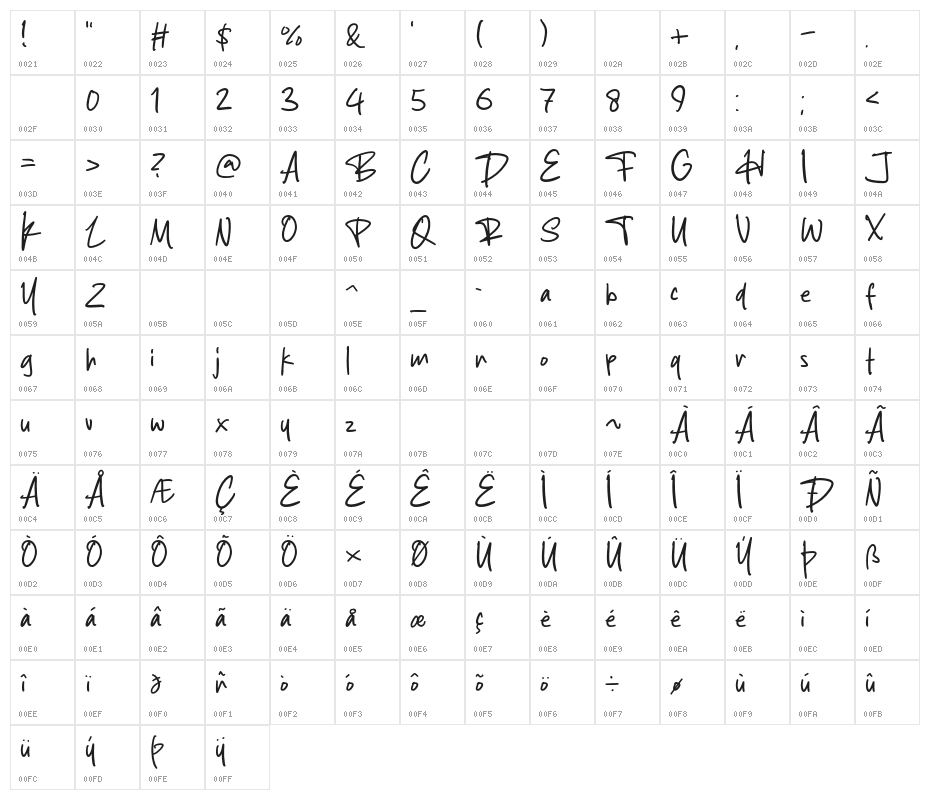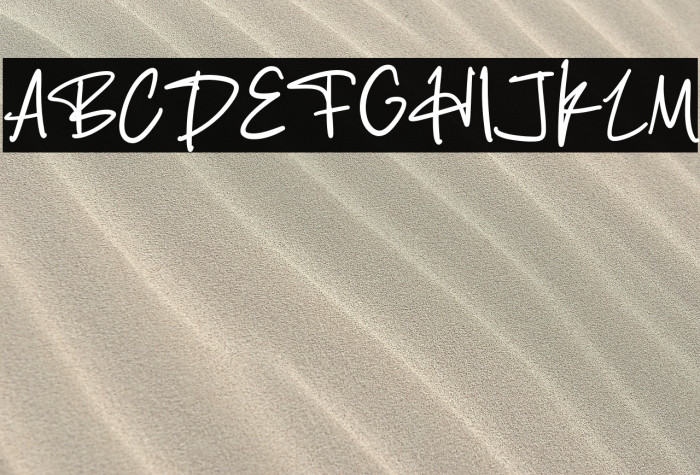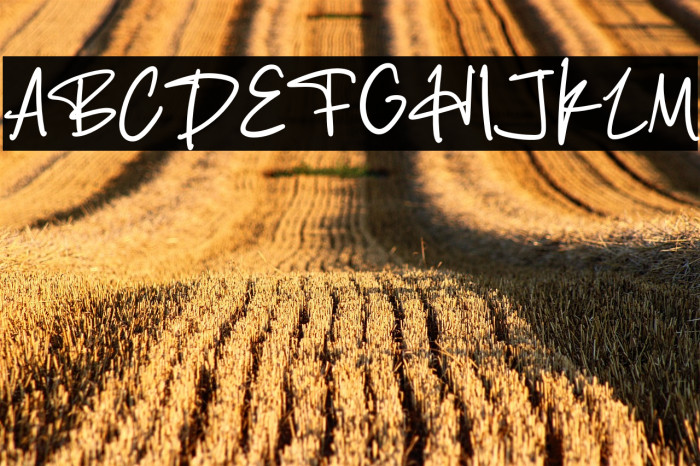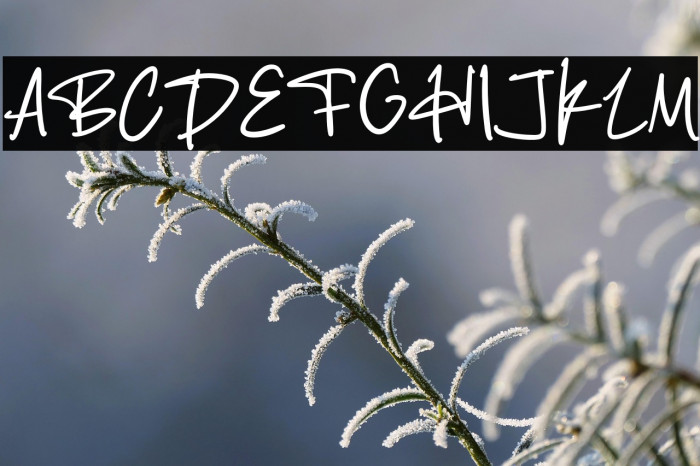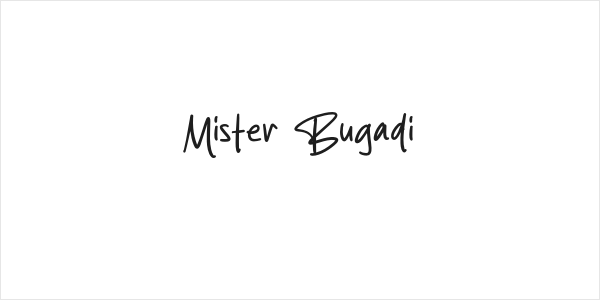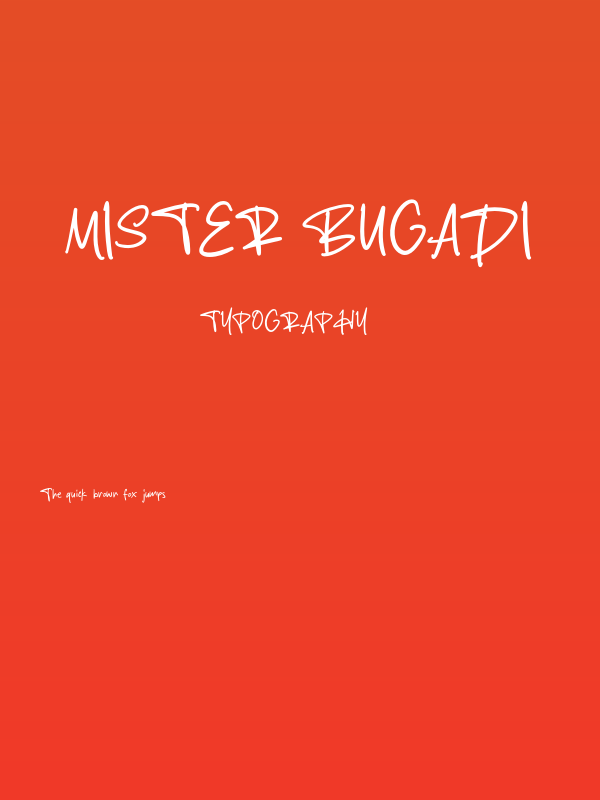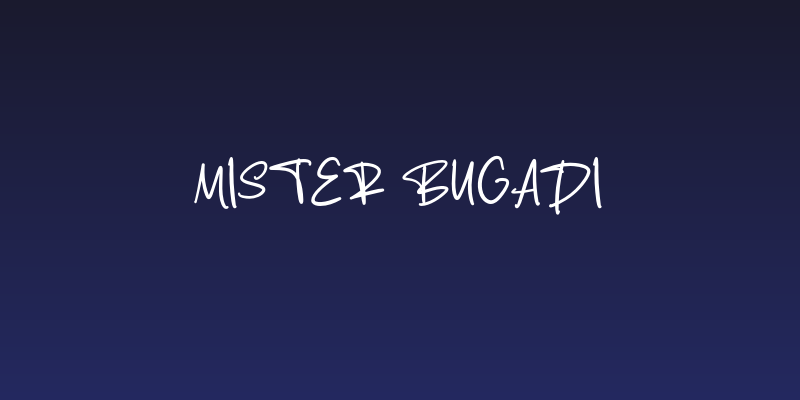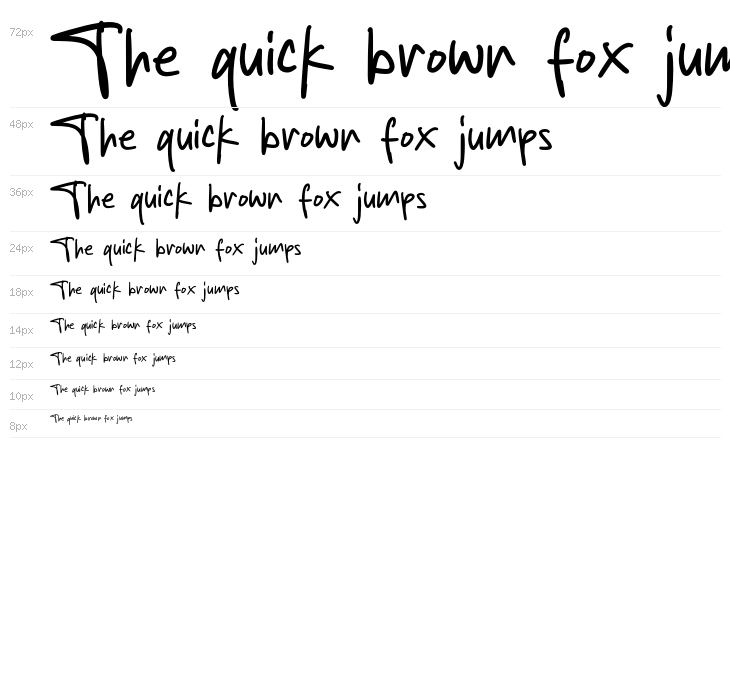
This font exudes a casual and handwritten style, characterized by its fluid and slightly irregular strokes that mimic natural handwriting. The uppercase and lowercase letters maintain a consistent flow, with a playful and approachable appearance. The numerals and special characters follow the same style, ensuring uniformity across all elements. The font's informal nature makes it ideal for projects that require a personal touch or a relaxed vibe. Its legibility is maintained despite the handwritten style, making it versatile for various applications.
| Use Case | Logos, Invitations, Personal projects |
| Proposed Projects | Ideal for greeting cards, personal blogs, informal invitations, and creative branding projects. |